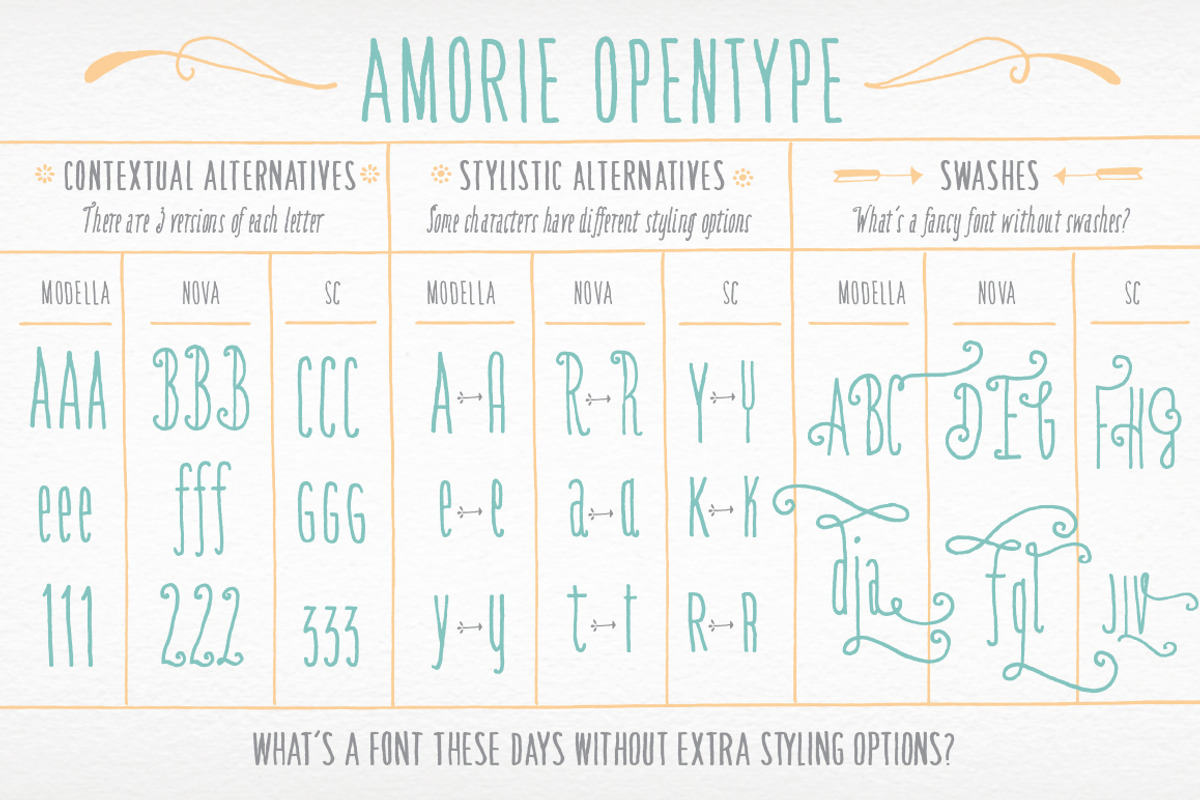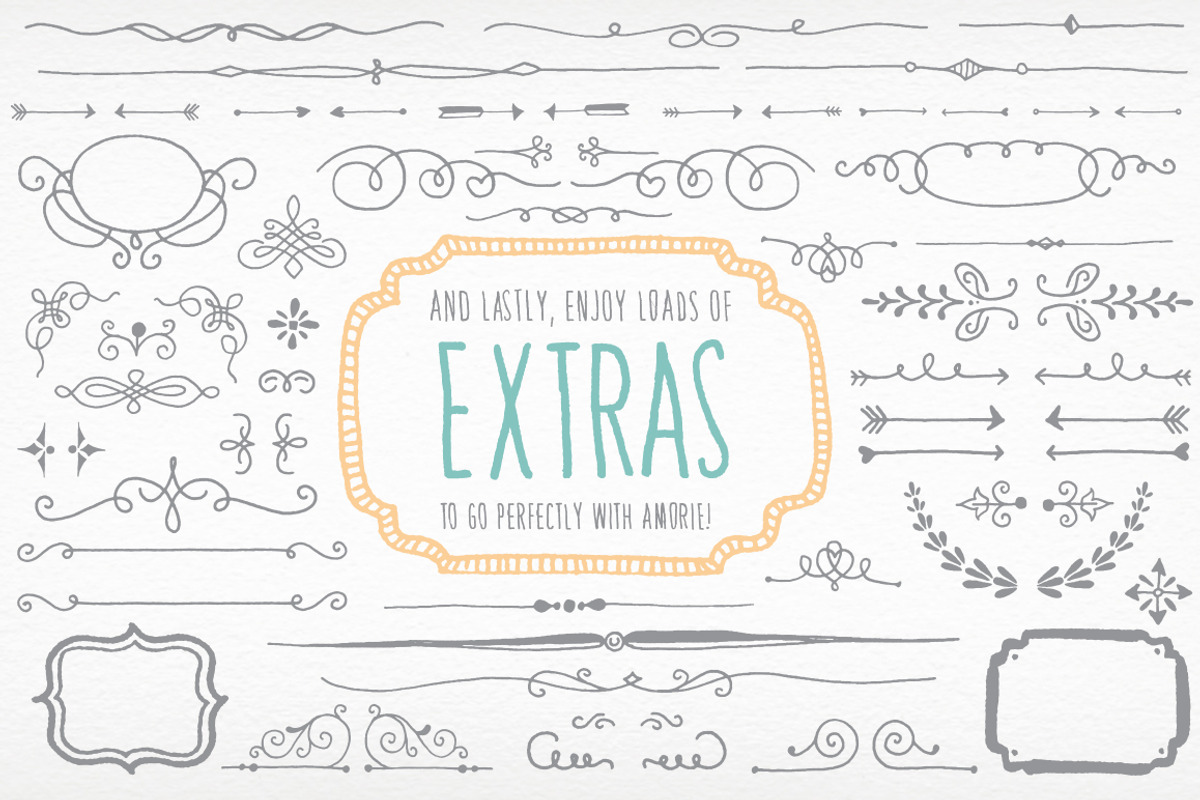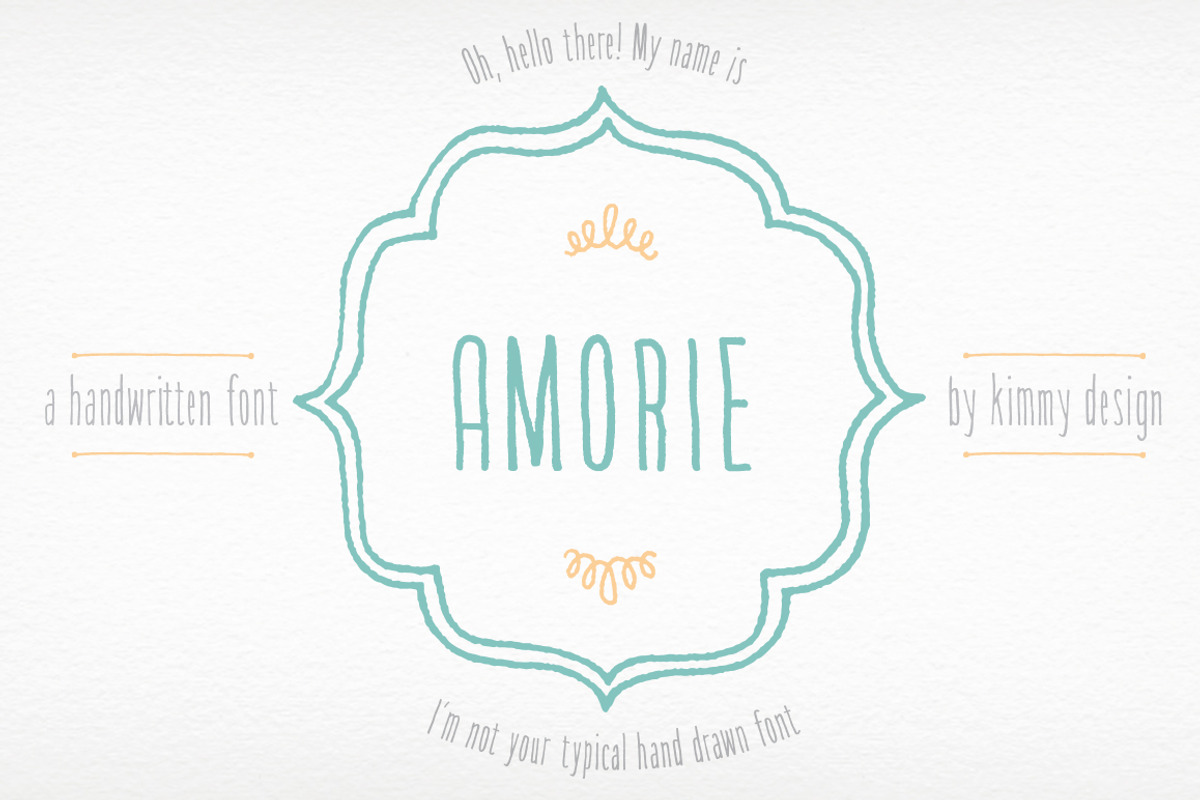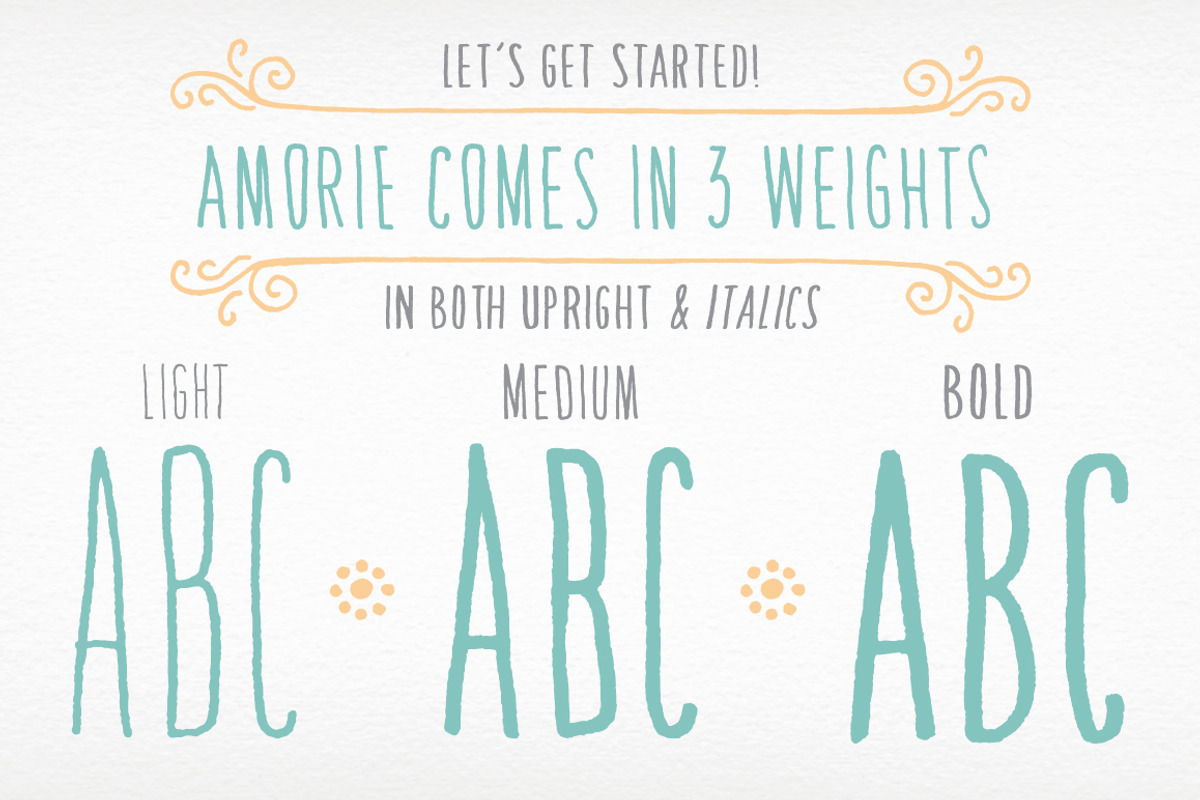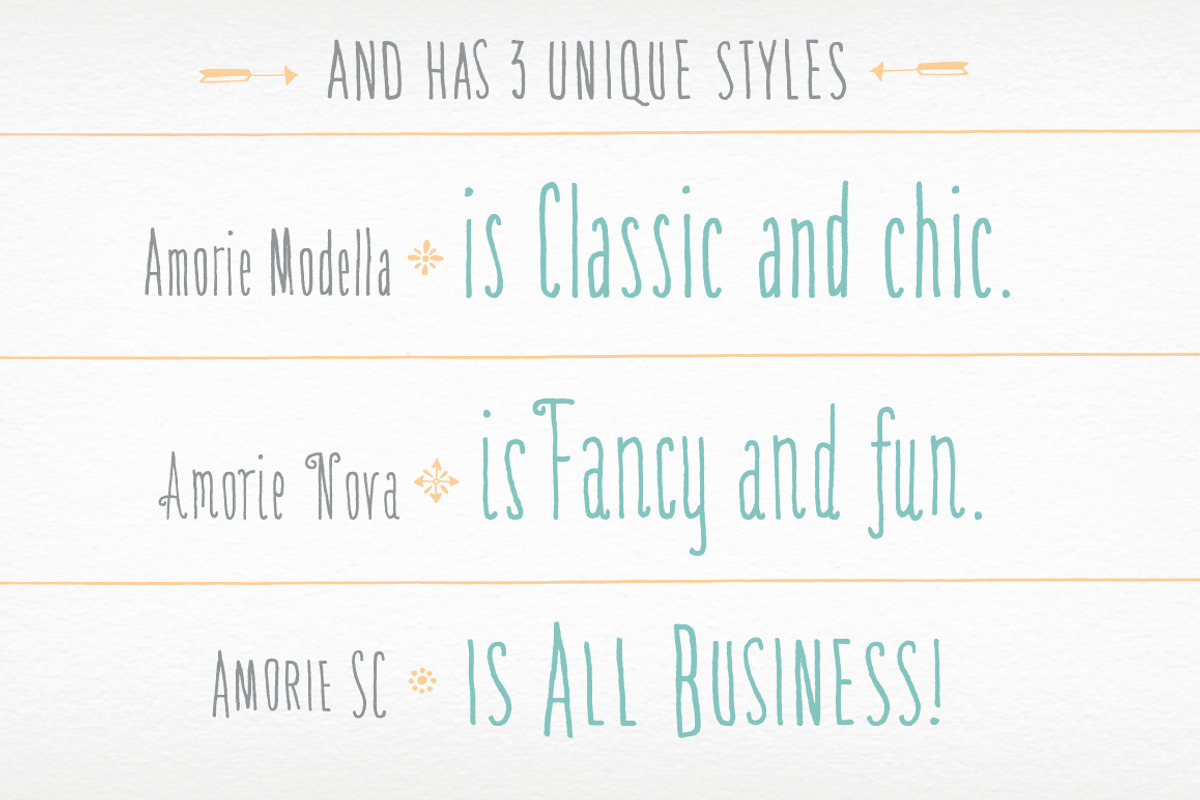
- This is the Amorie master package, which includes EVERYTHING this amazing font has to offer.
- Included in the font family is : Amorie Modella: (Light, Light Italics, Medium, Medium Italics, Bold, Bold Italics) + webfonts Amorie Nova:
- Opentype for this font includes Contextual Alternatives, which produces three versions of each character, making sure no two identical lette
- This includes swashes for the whole uppercase alphabet as well as lower case letters with an ascender or descender.
- There are also stylistic alternatives, which offer different style for a select few characters, including capital letters: A, K, R, Q, Y and